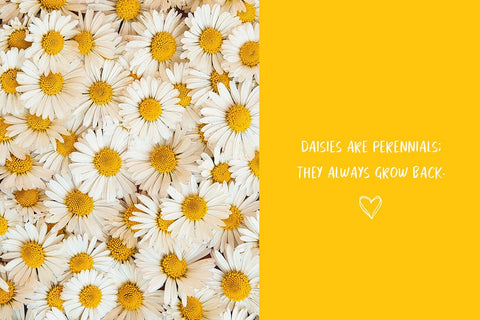
Thanks For The Love Font
This cute and adorble font is ideal for use in your digital journalling and planning or even for sleek and clean business designs.
- Jupiter Studio Fonts ,